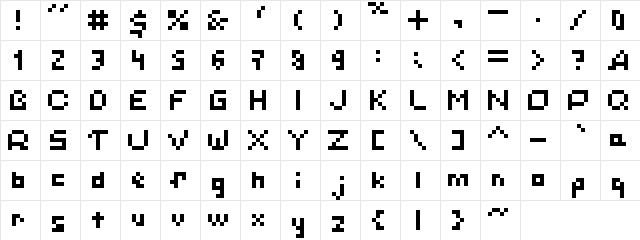
Complete Simple Pixels (Latin + Cyrillic + Katakana) Regular glyph index. Displaying only characters natively supported by Simple Pixels (Latin + Cyrillic + Katakana) Regular font.
Simple Pixels (Latin + Cyrillic + Katakana) is rooted in pixel-grid construction, making it a natural fit for game UI, retro computing aesthetics, and digital nostalgia projects.
Pro Tip: Use Simple Pixels (Latin + Cyrillic + Katakana) at sizes that align with its pixel grid for the sharpest rendering - scaling to non-integer multiples can introduce unwanted blur.